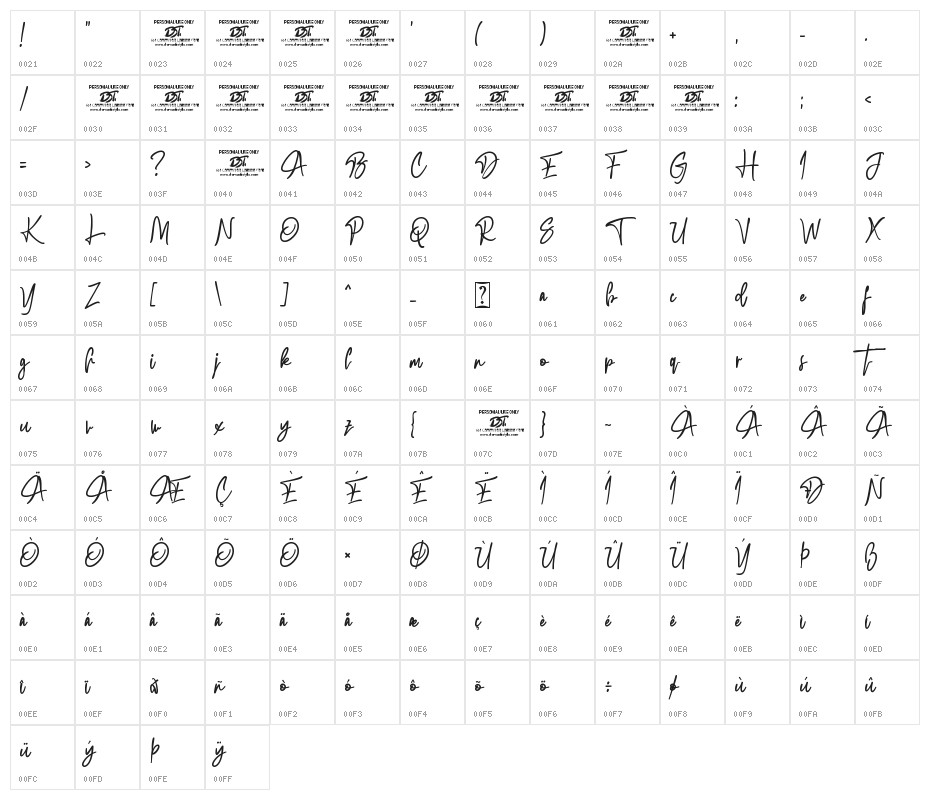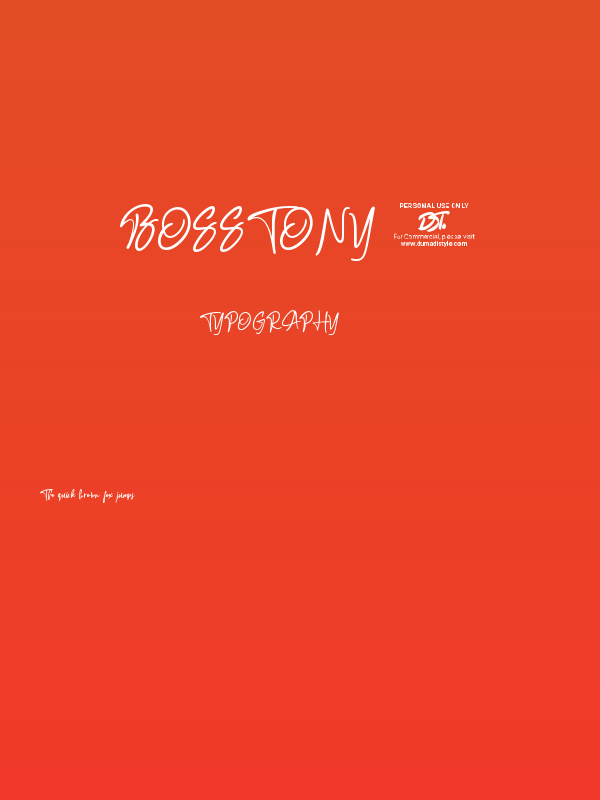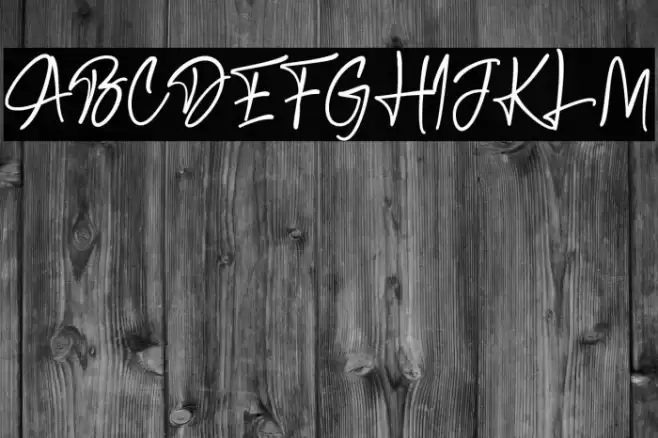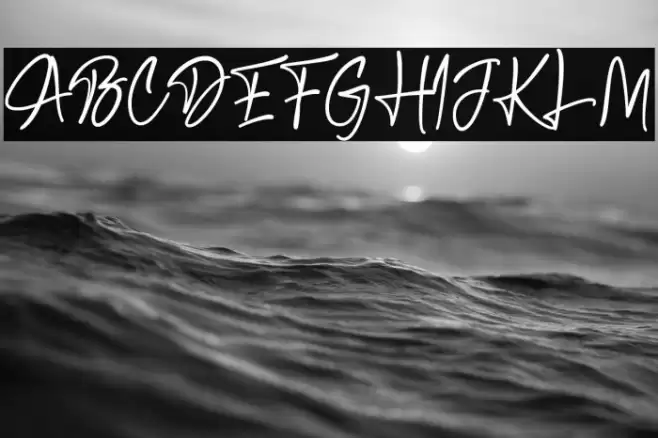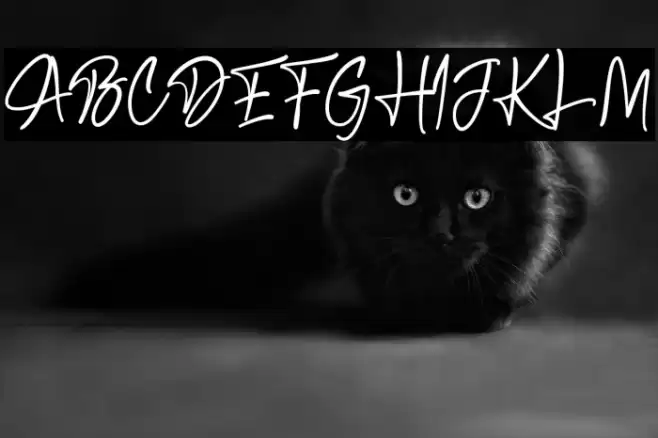
Bosstony 3 Font
Bosstony 3 Description
A lively handwritten script with tall, narrow letterforms and fluid, connected strokes. The uppercase is expressive and slightly irregular, while the lowercase is more compact and features playful loops and swashes. The overall look is casual yet stylish, with a natural, pen-like texture.
| Overall Style | Modern, Decorative, Casual |
| Use Case | Logos, Headlines, Invitations, Social media posts |
| Proposed Projects | Greeting cards, social media graphics, branding, invitations, quotes, posters. |